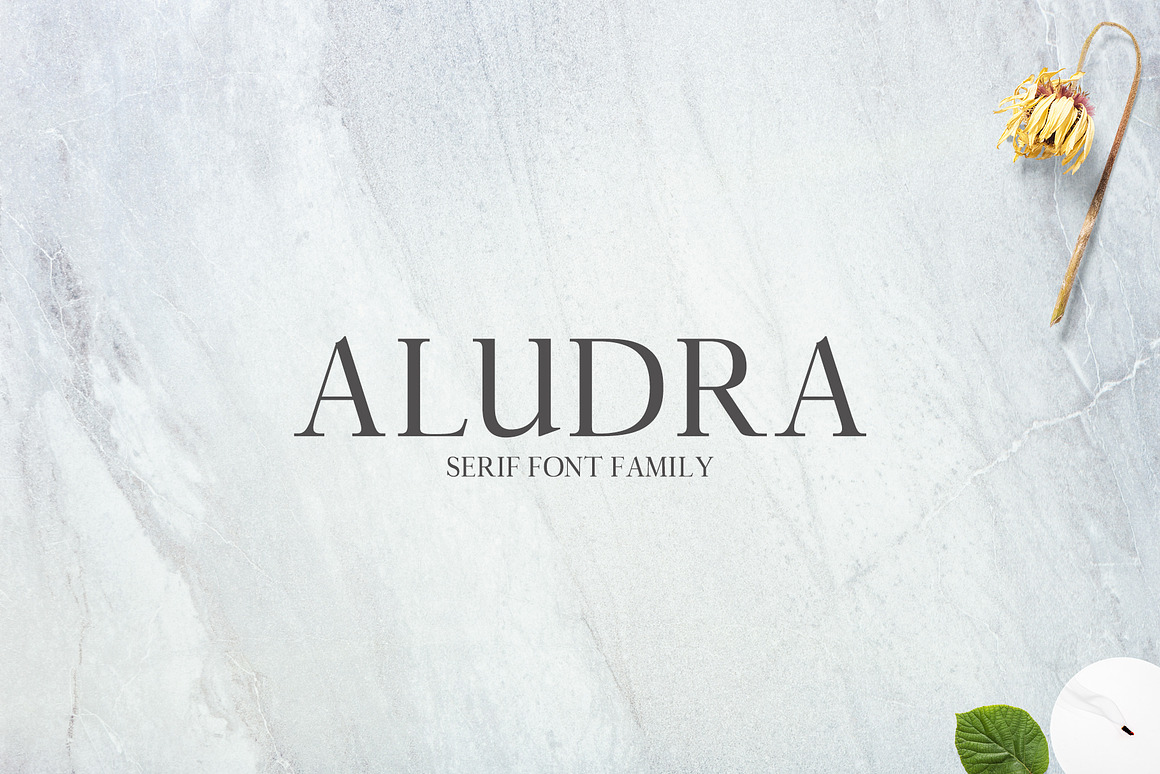
Aludra Serif 12 Font Family Pack
Aludra Serif 12 Font Family Pack is perfect for comprehensive book publishing, premium magazine layouts, sophisticated editorial design, corporate annual reports, academic journals, luxury brand communications, professional documentation, and distinguished print publications.
Aludra Serif 12 Font Family Pack is exciting because it delivers unparalleled typographic versatility with meticulously crafted serif details and optimized proportions that ensure exceptional readability while maintaining elegant sophistication. Its comprehensive weight range provides complete design flexibility for complex publishing projects requiring professional excellence.
Aludra Serif 12 Font Family Pack family includes six weights from thin to black with matching italic variations, offering designers twelve expertly balanced font styles for complete editorial control and sophisticated typographic hierarchies across all publishing applications.
Editorial professionals consistently choose Aludra Serif 12 Font Family Pack for its outstanding performance in complex publications requiring sophisticated visual hierarchy and extended reading comfort. The font's comprehensive weight variations and refined styling ensure excellent readability across all applications from footnotes to dramatic headlines. Its classical foundation provides familiar reading comfort while contemporary refinements ensure optimal performance in both digital and premium print media environments.
The Aludra Serif 12 Font Family Pack download includes extensive character sets with professional symbols, mathematical notation, and international language support for global publishing compatibility. This thorough coverage ensures seamless implementation across multilingual publications, academic papers, and international corporate communications. The font's consistent spacing and careful kerning optimization create polished layouts that enhance reader engagement and professional presentation quality.
Publishing teams appreciate Aludra Serif 12 Font Family Pack's versatility in creating prestigious editorial materials that establish immediate credibility and professional authority. Its timeless appeal transcends publishing trends while maintaining the comprehensive flexibility required for complex editorial projects, making it an invaluable asset for organizations seeking to establish lasting excellence through superior typographic communication and complete design control.